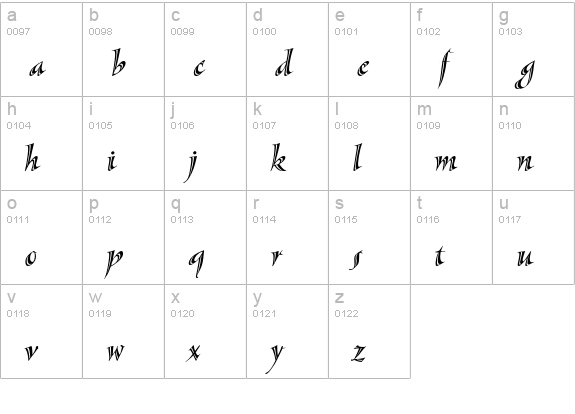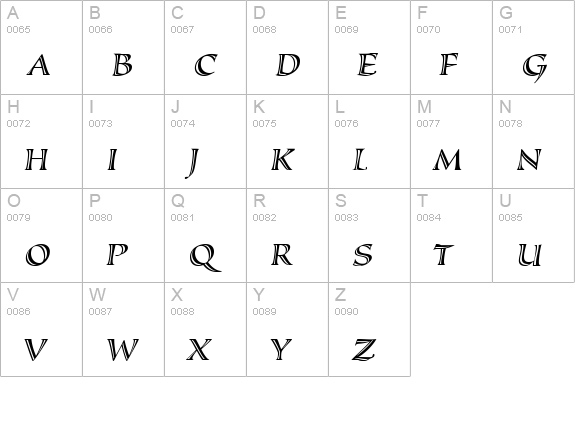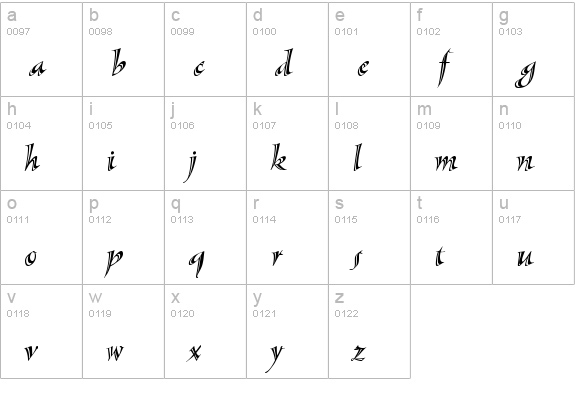
Sassafras Std Italic is a distinctive, italic variant in the Sassafras typeface family \xE2\x80\x94 well suited to design and typography projects.
Sassafras Std Italic is a stunning and versatile font that effortlessly combines elegance with a touch of playfulness. Its flowing and slanted italic design adds a unique charm to any project, making it perfect for both professional and creative endeavors. With its stylish and curvaceous letterforms, Sassafras Std Italic exudes a sense of sophistication and grace. The subtle variations in line weight give the font a dynamic and organic feel, making it visually engaging and captivating. Whether you're designing a logo, creating a brand identity, or crafting eye-catching headlines, Sassafras Std Italic will add a touch of flair and personality to your work. Its versatility allows it to be used in a wide range of contexts, from fashion magazines and luxury branding to wedding invitations and editorial layouts. One of the most remarkable aspects of Sassafras Std Italic is that it is freely available to download at FontsMarket.com. This means that you can easily access this remarkable font and start incorporating its beauty into your designs without any cost or restrictions. Embrace the elegance and creativity that Sassafras Std Italic brings to your projects. Download it today from FontsMarket.com and unleash your imagination with this stunning font that effortlessly combines style and charm.